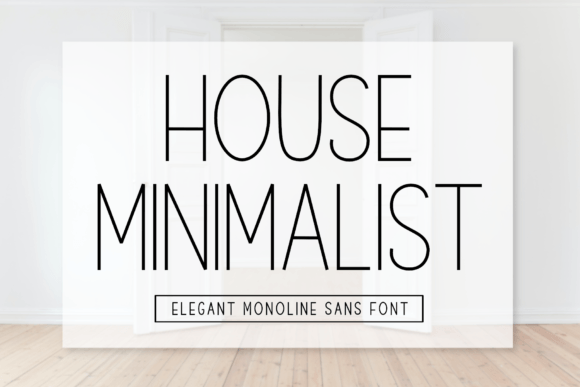
Introducing House Minimalist Font, the best font for display that will take your design to new heights! Created by AV Type, this simple and elegant handwritten sans serif font is the perfect choice for those seeking a blend of sophistication and effortless style.
House Minimalist Font exudes a casual charm that instantly captivates the eye. Its smooth curves and clean lines create a modern and minimalist look, making it a versatile addition to any design project. Whether you're designing a logo, crafting invitations, or creating stunning social media graphics, this font will elevate your work to the next level.
With House Minimalist Font, the possibilities are endless. Its adaptability allows it to seamlessly integrate into a wide range of design ideas, from sleek and contemporary to warm and inviting. Let your creativity flow as you experiment with different layouts, colors, and styles, knowing that this font will effortlessly complement your vision.
But what sets House Minimalist Font apart from the rest? Its unique combination of simplicity and elegance evokes a sense of authenticity and timelessness. As users browse through your e-commerce collection page, they will be drawn to this font's charm, leaving a lasting impression and increasing the likelihood of a purchase.
Not only does House Minimalist Font offer aesthetic appeal, but it also delivers on functionality. Its legibility ensures that your message is clear and easily readable, even at smaller sizes. Whether you're designing for print or digital platforms, this font guarantees a seamless reading experience for your audience.
Embrace the power of House Minimalist Font to add a touch of sophistication and personality to your designs. Stand out from the crowd and make a statement with this captivating typeface. Elevate your brand, captivate your audience, and leave a lasting impression with House Minimalist Font.